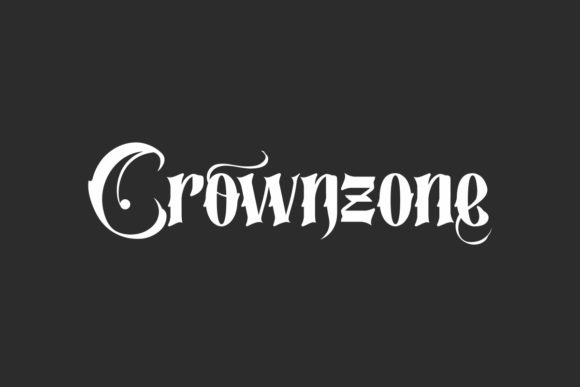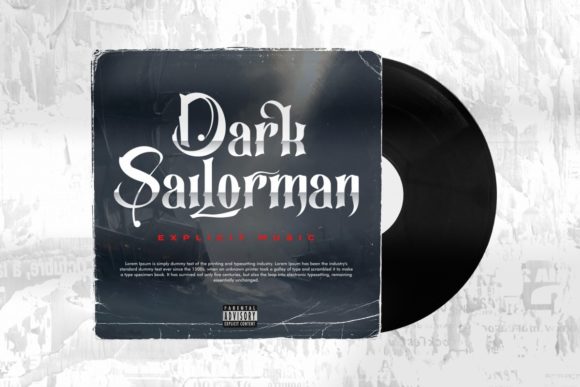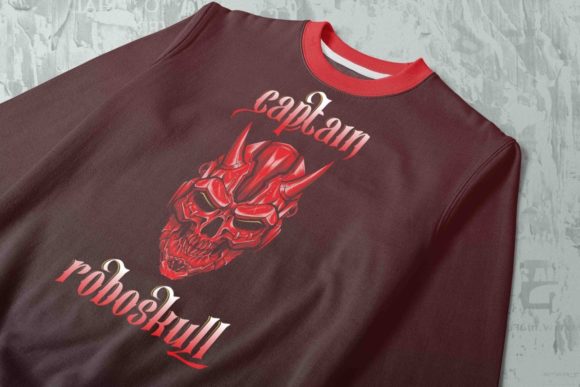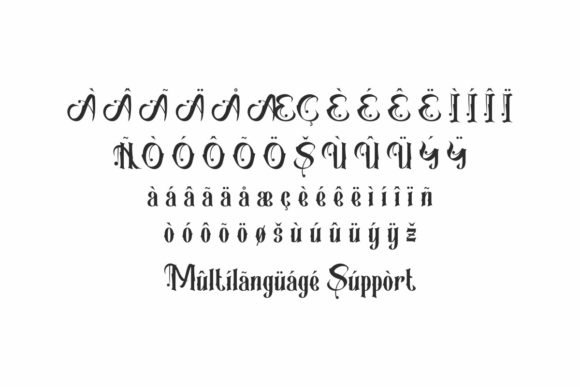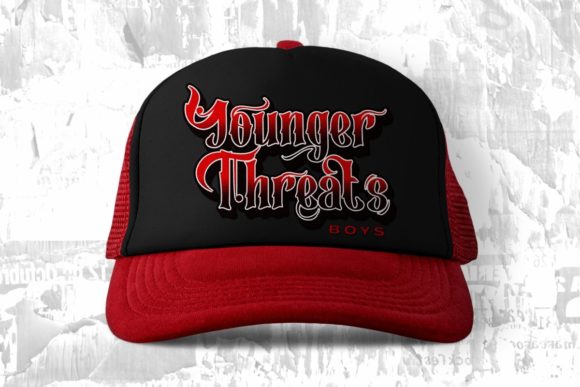
Crownzone Font
Crownzone is a gothic styled blackletter font. It will be awesome on various projects: artist, band, barber, fashion, logo branding, music, performer, quote, signage, singer, and many more. This font is PUA encoded which means you can access all of the glyphs and swashes with ease.